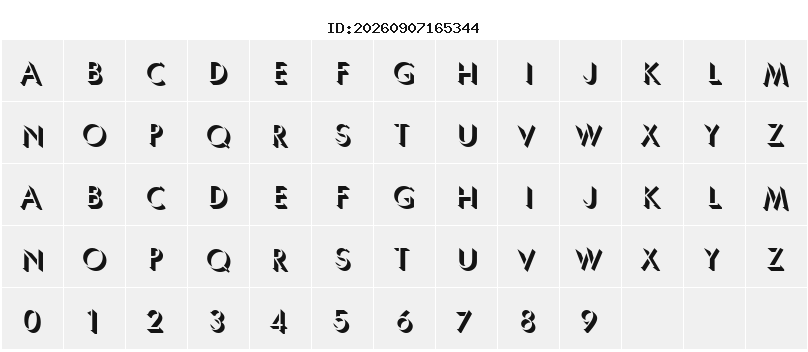
Umbra BT Preview
• Font Name: Umbra BT
• Font ID: Umbra, Decorated 091
• Full Font Name: Umbra BT
• Version: mfgpctt-v1.53 Monday, February 1, 1993 3:07:39 pm (EST)
• PostScript Name: UmbraBT-Regular
• Character Count: 283
About Umbra BT.ttf
Umbra BT.ttf is a modern, elegant sans-serif font designed for ultimate readability and visual harmony. Perfect for branding, headlines, web design, and print materials.